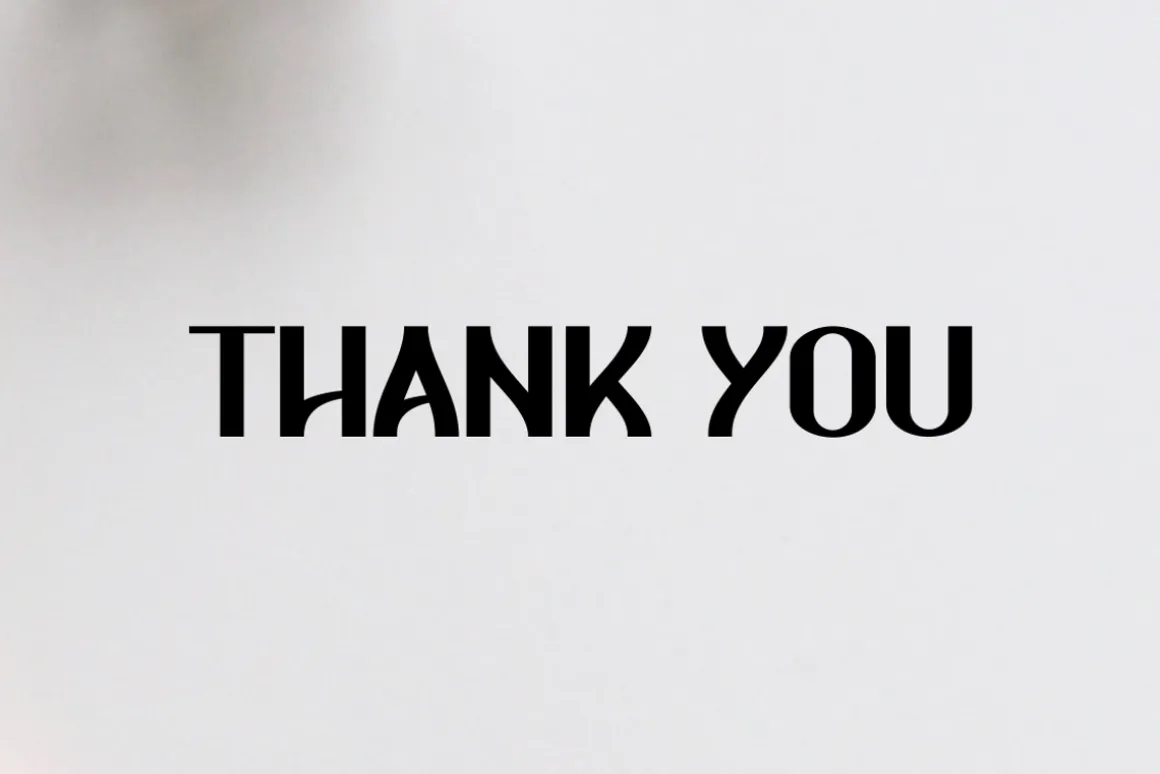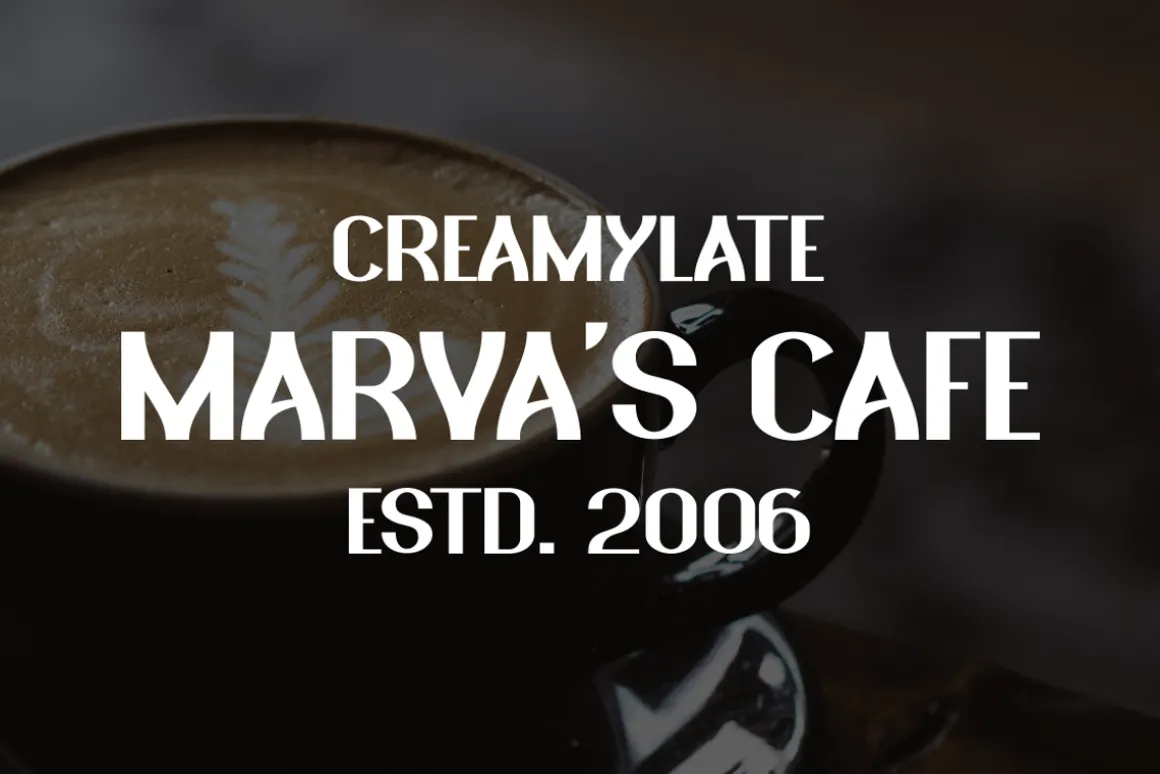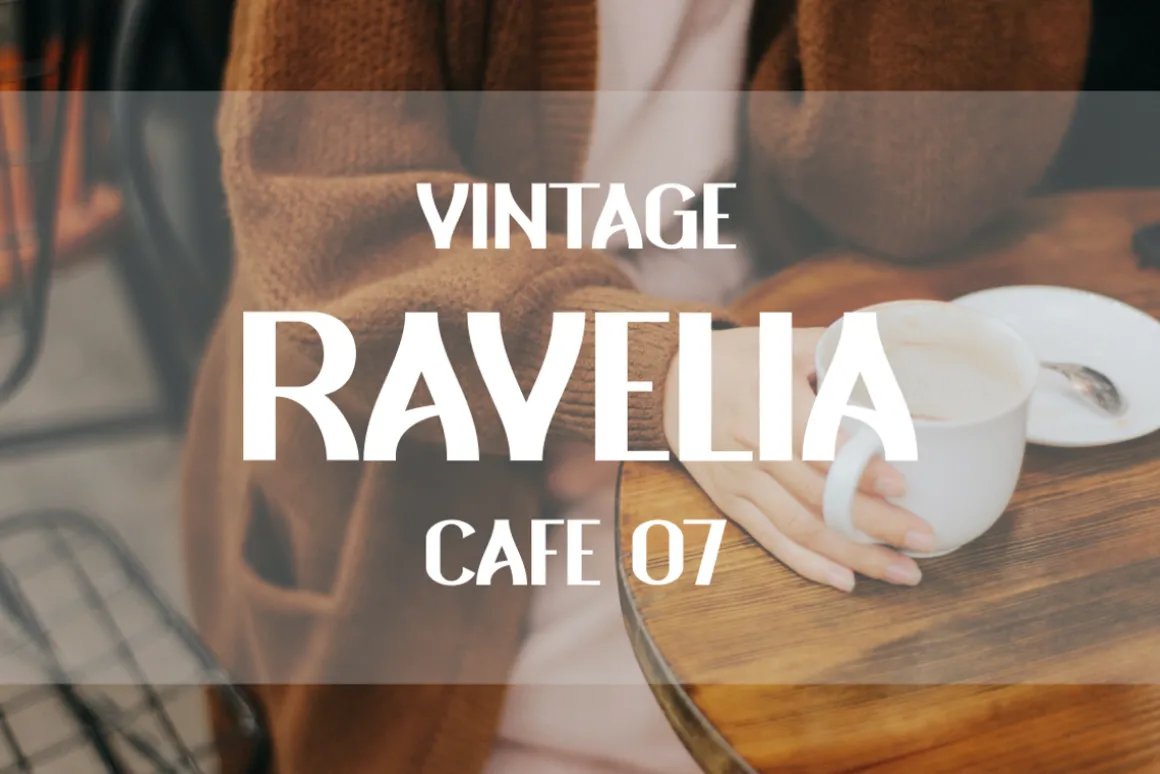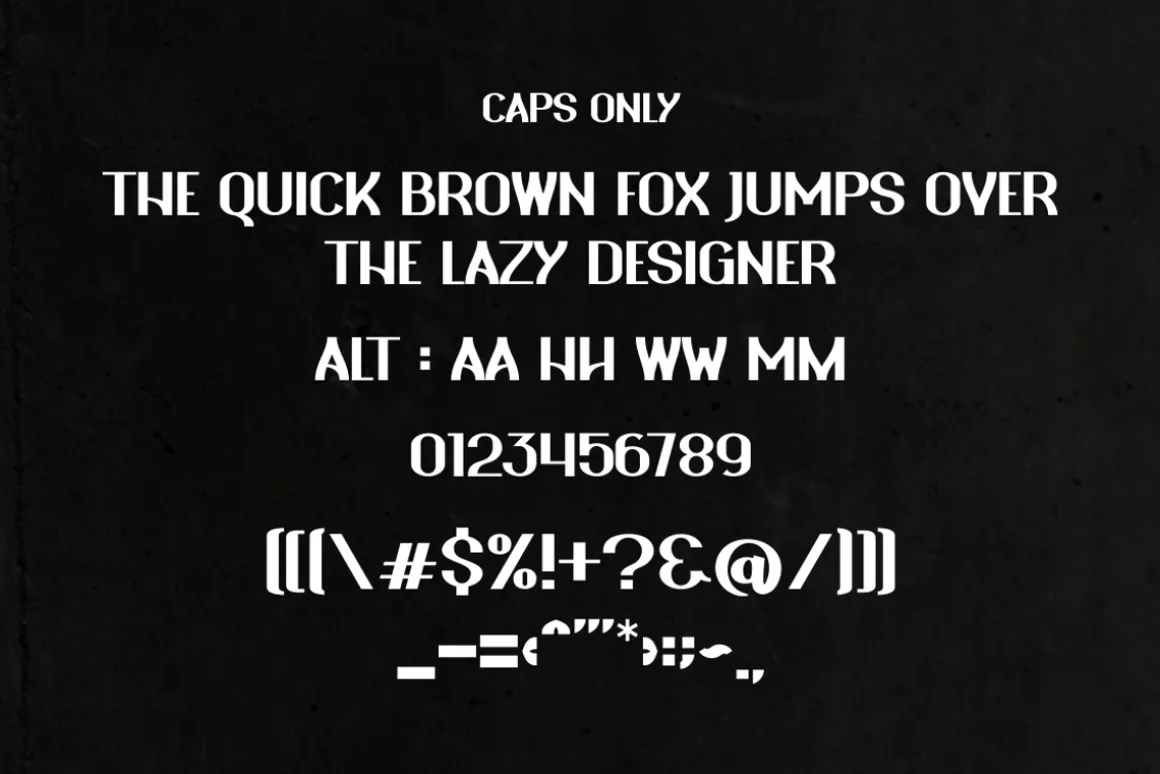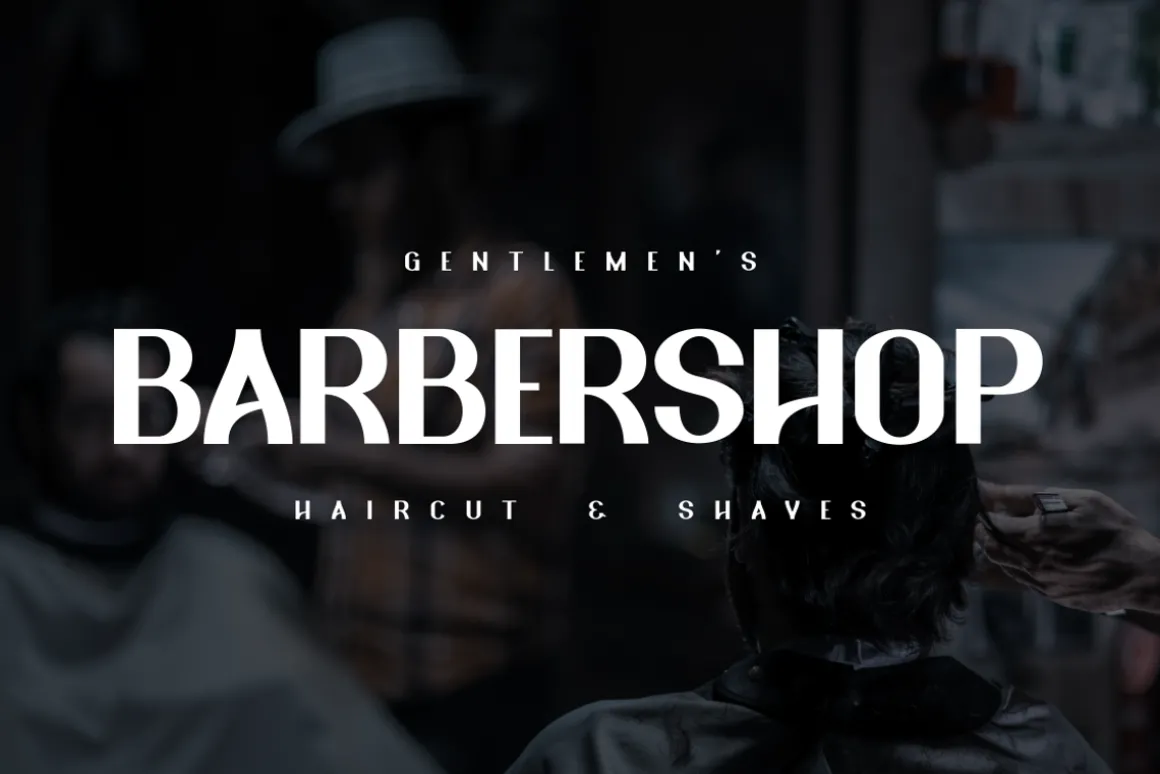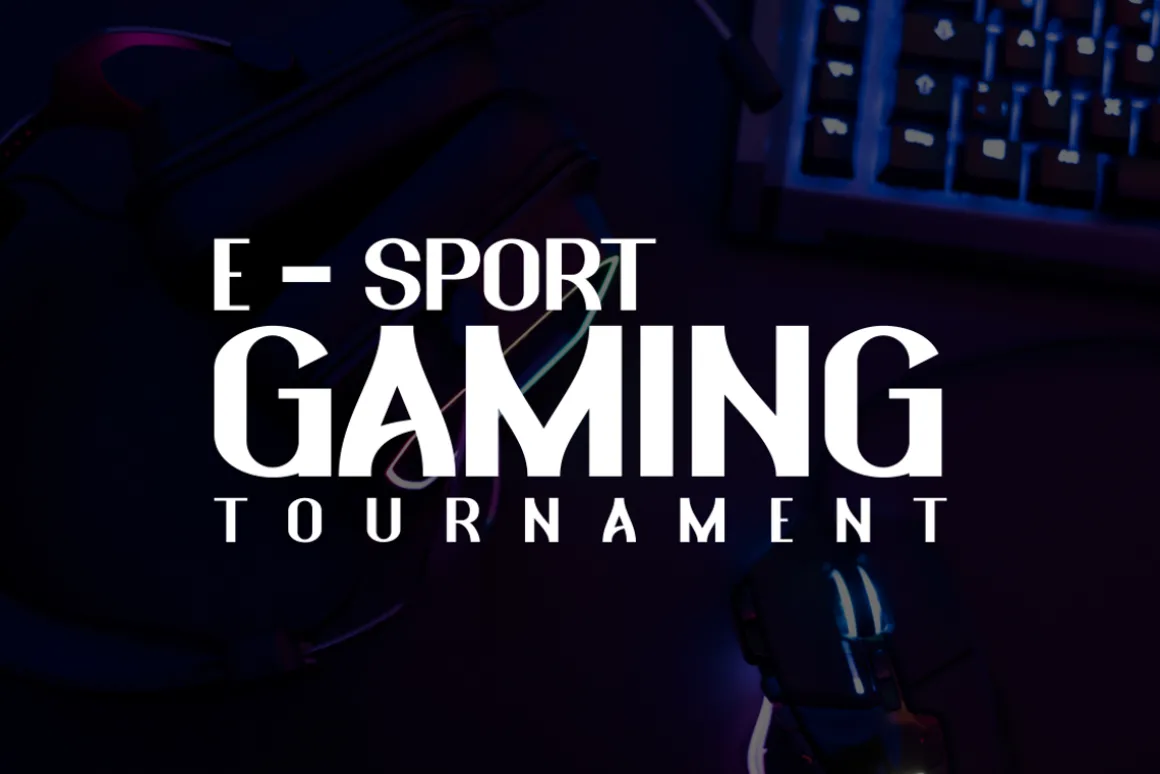
Unleash a world of exceptional design aesthetics with the prime quality font that caters to a wide variety of themes. From the timeless allure of vintage and retro styles, the unique aura of semi-black-letter typography, to the chic flair of fashion industry or the nostalgic ambiance of cafes and barbershops, this font adapts beautifully. Even within the dynamic environment of the gaming universe, the distinct charm of this font springs to life, sharply elevating the visual experience. Far from the ordinary, this font brings an extraordinary edge that takes design work to an entirely new level of spectacular.